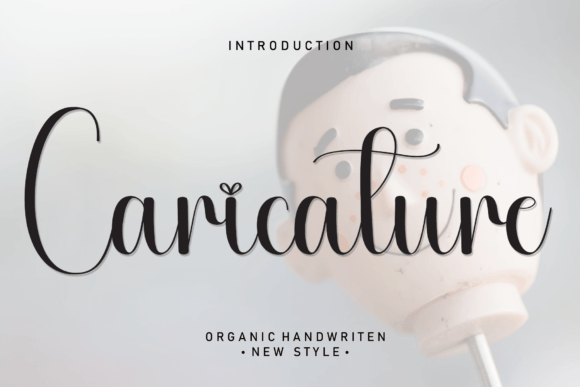
The Caricature Font: A Timeless, Elegant Touch for Your Designs
I’ll never forget the time I was working on a project for a luxury brand, and I just couldn’t find the right font to match their sophisticated vibe. I had tried countless serif and sans-serif fonts, but nothing seemed quite right. That’s when I stumbled upon the Caricature font, and it was love at first sight! 💕
With its flowing, handwritten style and elegant touch, Caricature instantly elevated my design to a whole new level. I knew right then and there that I had to share this amazing font with fellow designers, crafters, and creative hobbyists. So, let’s dive in and explore what makes Caricature so special!
• ✅ Elegant, flowing script that’s perfect for luxury brands, weddings, and high-end events
• ✅ Incredibly distinct and timeless style that sets it apart from other fonts
• ✅ Versatile and can be used for a wide range of design projects, from logos to social media graphics
• ⚠️ May not be the best choice for very long blocks of text, as it can be a bit ornate
• ⚠️ Some users may find the font a bit too elegant or formal for certain projects
Caricature was designed by a talented typographer who was inspired by the elegant scripts of the 18th century. With a passion for calligraphy and lettering, the designer set out to create a font that would evoke the sophistication and luxury of a bygone era. The result is a timeless, elegant script that’s perfect for a wide range of design projects.
Q: What is the Caricature font?
A: Caricature is a flowing, handwritten font with an elegant touch, perfect for luxury brands, weddings, and high-end events.
Q: Is Caricature easy to read?
A: Yes, Caricature is highly legible, even at smaller font sizes, making it perfect for a wide range of design projects.